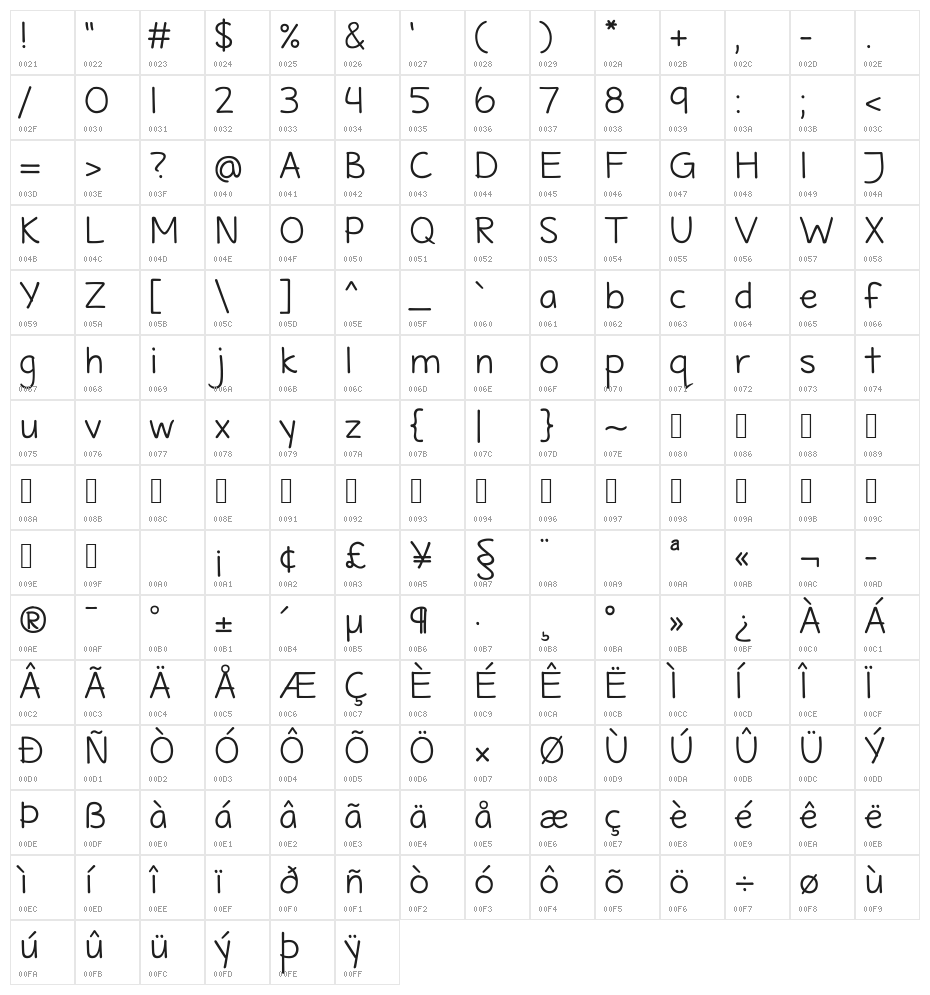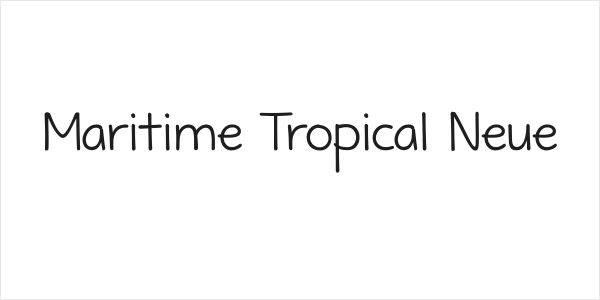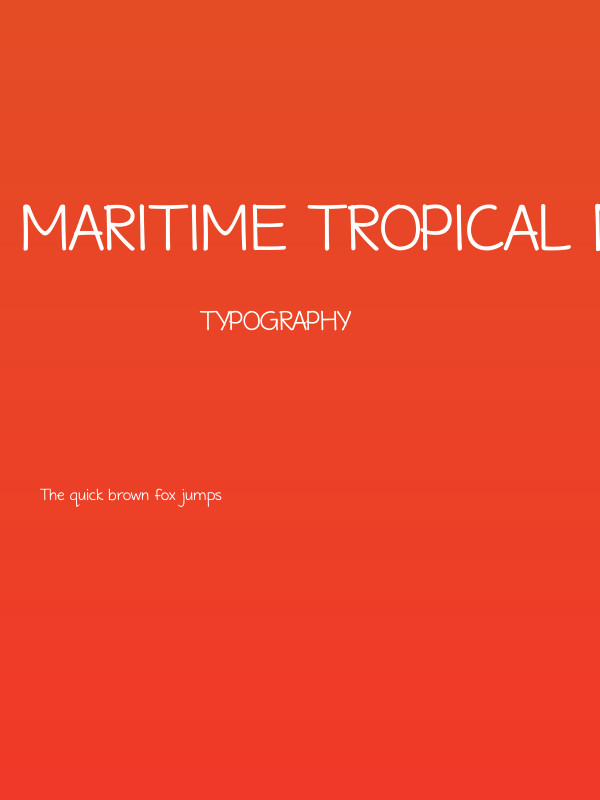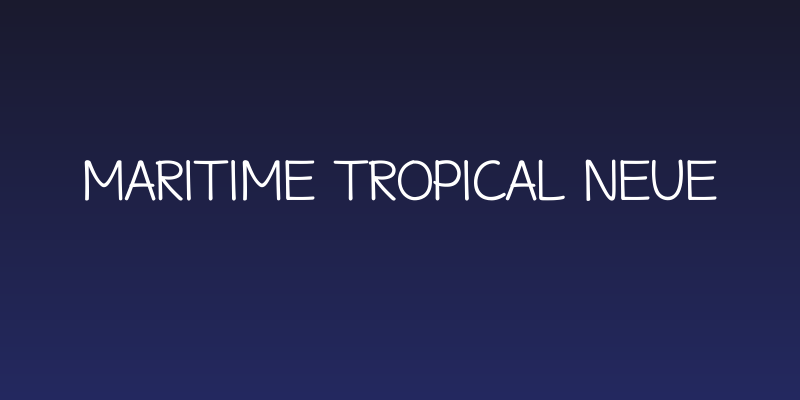
Maritime Tropical Neue Font
Maritime Tropical Neue Description
This font features a playful and rounded style with a modern touch. The characters are smooth and slightly elongated, giving them a friendly and approachable appearance. The uppercase and lowercase letters maintain a consistent flow, while the numerals and special characters complement the overall design. The strokes are uniform in thickness, contributing to a clean and cohesive look. This font is versatile, suitable for both digital and print media, and can add a lively yet professional feel to any project.
| Use Case | Headlines, Logos, Digital content |
| Proposed Projects | Ideal for children's books, educational materials, branding for playful products, and casual digital content. |